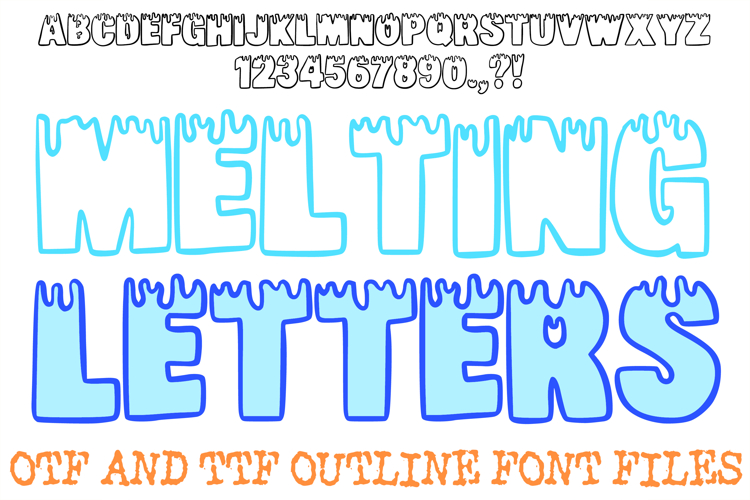
Melting Letters Alphabet Font Hand Drawn ABC OTF TTF Type
The Melting Letters Font is a bold, expressive display typeface characterized by its thick, rounded forms and fluid "melting" terminals. With liquid-like drips cascading from the top of each character, this font is an ideal choice for designers working on ice cream parlor branding, summer festival posters, edgy street-style apparel, and playful horror-themed graphics.
The design captures a sense of slow, viscous movement, where the heavy weight of the letters is balanced by the organic, gravity-defying drips. Whether you are building an identity for a candy shop or designing high-impact headlines for a youth-centric event, this font provides a messy yet creative aesthetic that feels both tactile and modern.
Dripping Top Accents: The unique "gravity-fed" drips at the top of each letter add a layer of movement and visual interest that sets it apart from standard bubble fonts.
Heavyweight Rounded Forms: The chunky construction provides a friendly, approachable foundation that commands attention in any layout.
Tactile Liquid Aesthetic: Perfectly tailored for projects that need a "wet" or "melting" look—from hot summer themes to gooey dessert menus.
High-Impact Outlines: The clean, bold borders ensure excellent legibility, allowing the melting details to stand out without compromising the clarity of the text.